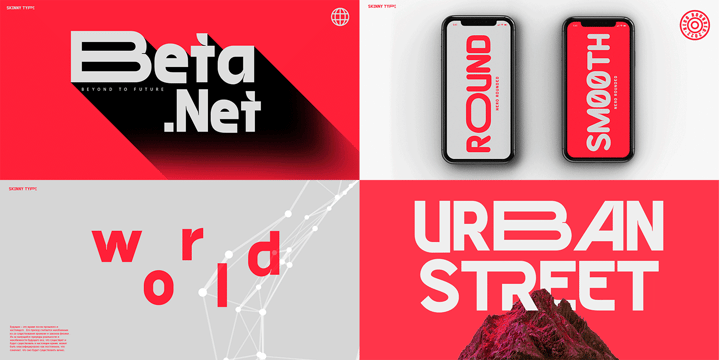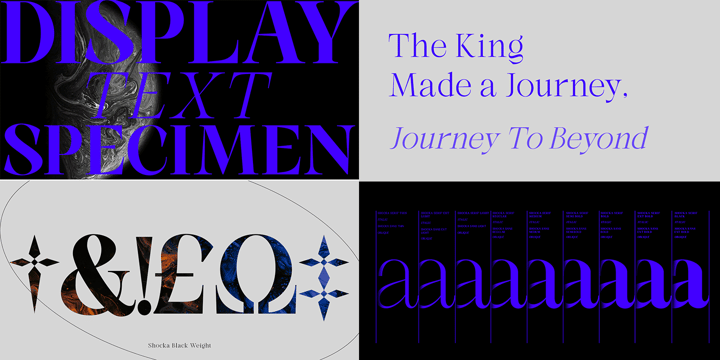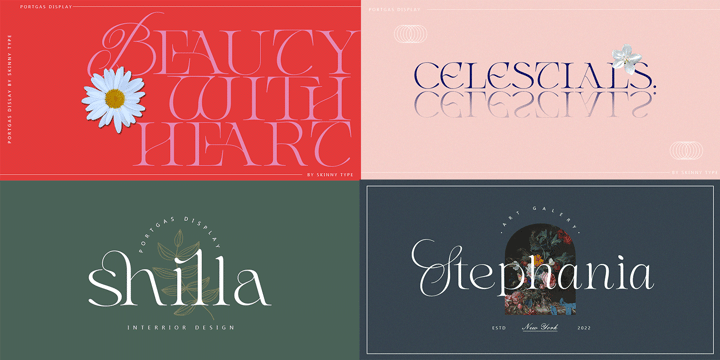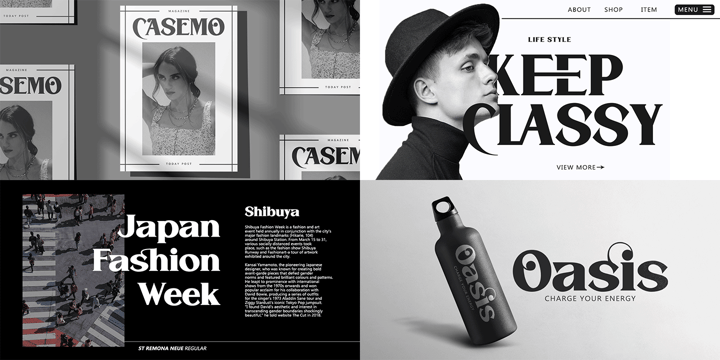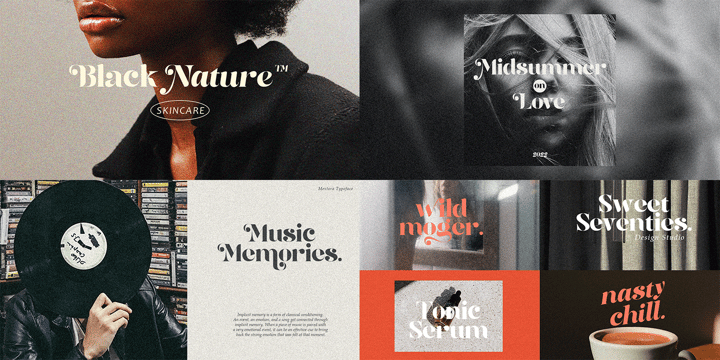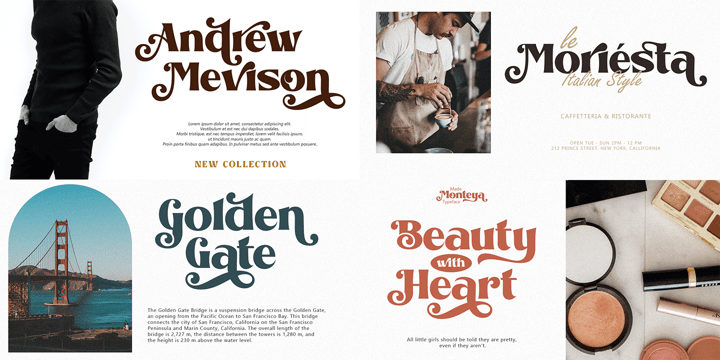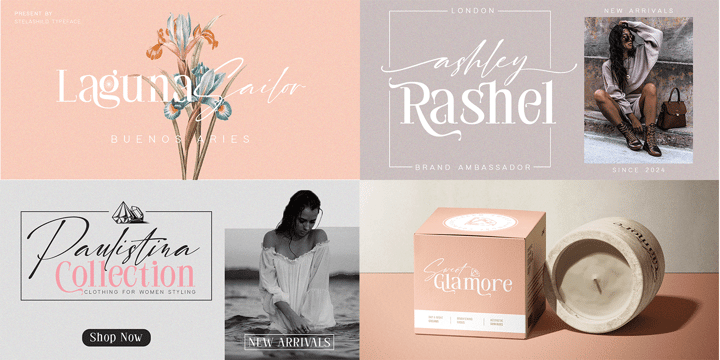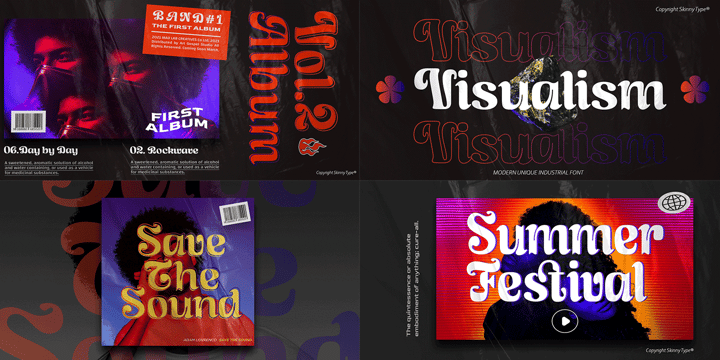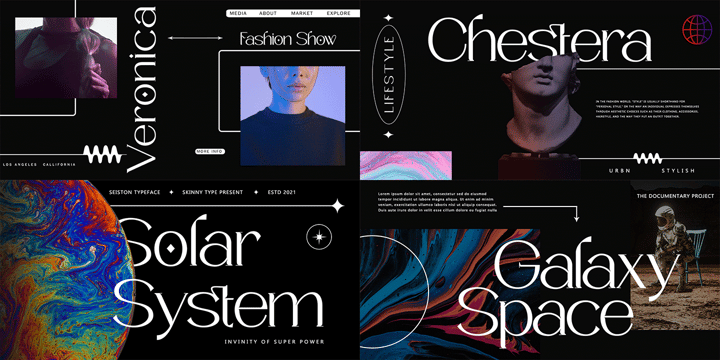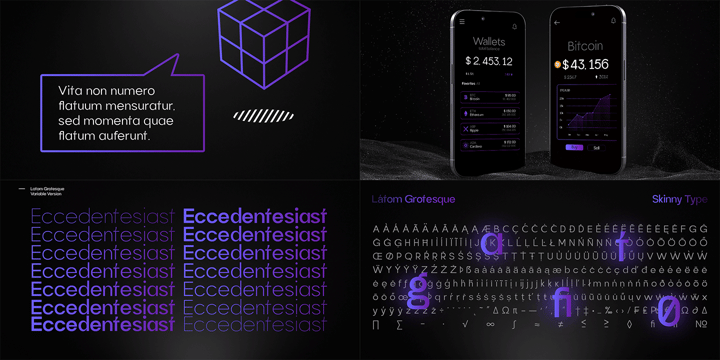
Unique Sans And Serif Bundle Collection
Contains 76 fonts that you are ready to use for your design projects such as branding, creative posts, logos, wedding invitations, covers and so on.